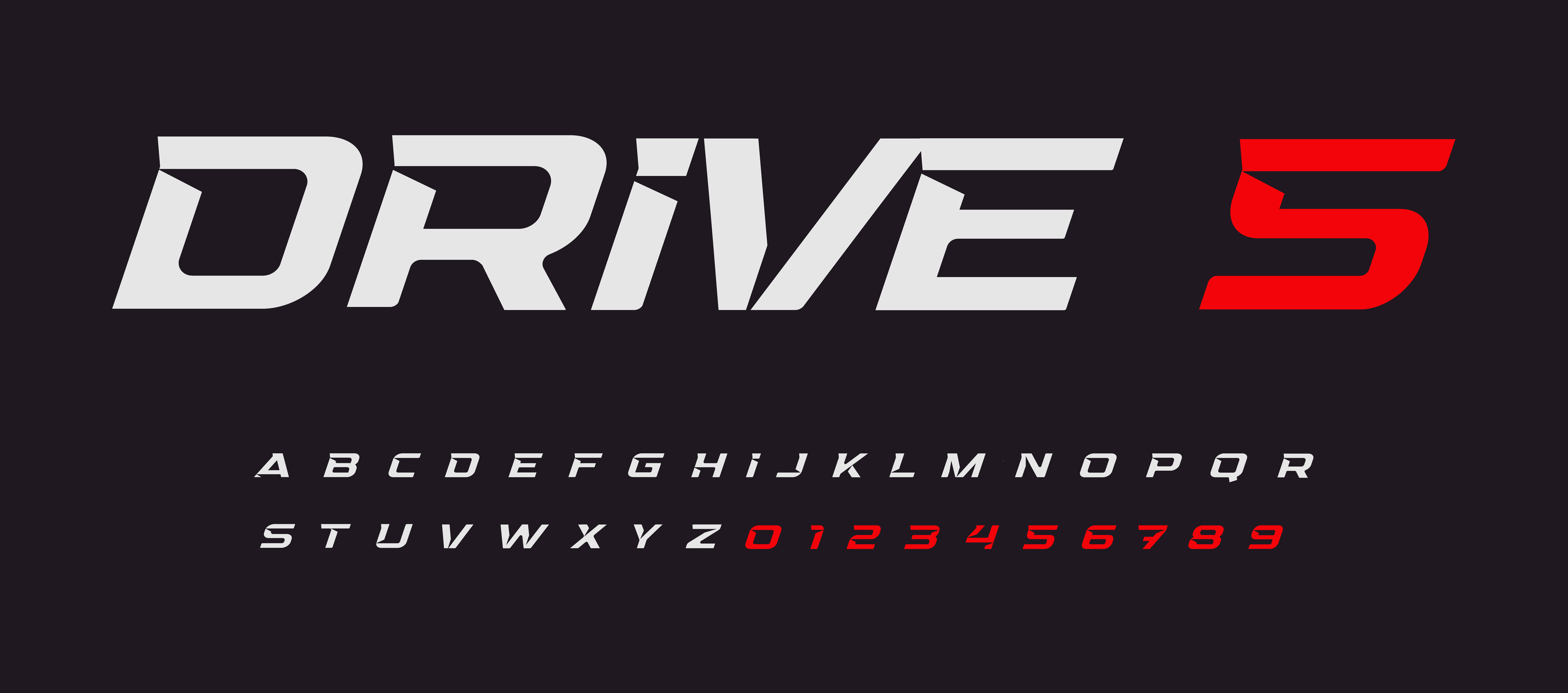
Best Font For Vehicle Graphics . But first, let’s talk about serif and san serif fonts. These are some of the best tips that you can use for vehicle lettering when it comes to vehicle wraps. Montserrat bold and roboto slab. Sans serif fonts work best for vehicle graphics. You need to be careful about. Here are three design tips for your vehicle graphics and font that can help you maximize your reach and impact. When collaborating with your marketing company or with your sign/print company, make sure to select a font that’s easy to read from a far. With commercial wraps, picking the right size, typeface, and colors can enhance the overall impact of your brand. Sans serif fonts offer optimal readability for both large and fine print, with clean and modern. Do use a font that can be read from a distance. While it may be tempting to use a unique, complicated font for your vehicle wrap message, this type of font greatly hinders readability. With hundreds of thousands of fonts out there, choosing the right font can seem overwhelming.
Montserrat bold and roboto slab. Here are three design tips for your vehicle graphics and font that can help you maximize your reach and impact. Sans serif fonts work best for vehicle graphics. Sans serif fonts offer optimal readability for both large and fine print, with clean and modern. When collaborating with your marketing company or with your sign/print company, make sure to select a font that’s easy to read from a far. With hundreds of thousands of fonts out there, choosing the right font can seem overwhelming. These are some of the best tips that you can use for vehicle lettering when it comes to vehicle wraps. Do use a font that can be read from a distance. But first, let’s talk about serif and san serif fonts. With commercial wraps, picking the right size, typeface, and colors can enhance the overall impact of your brand.
Best Font For Vehicle Graphics When collaborating with your marketing company or with your sign/print company, make sure to select a font that’s easy to read from a far. Montserrat bold and roboto slab. You need to be careful about. But first, let’s talk about serif and san serif fonts. These are some of the best tips that you can use for vehicle lettering when it comes to vehicle wraps. Do use a font that can be read from a distance. With commercial wraps, picking the right size, typeface, and colors can enhance the overall impact of your brand. Sans serif fonts offer optimal readability for both large and fine print, with clean and modern. While it may be tempting to use a unique, complicated font for your vehicle wrap message, this type of font greatly hinders readability. Here are three design tips for your vehicle graphics and font that can help you maximize your reach and impact. Sans serif fonts work best for vehicle graphics. With hundreds of thousands of fonts out there, choosing the right font can seem overwhelming. When collaborating with your marketing company or with your sign/print company, make sure to select a font that’s easy to read from a far.
Car Fonts From Your Favorite Automotive Brands Gridfiti Best Font For Vehicle Graphics Sans serif fonts work best for vehicle graphics. While it may be tempting to use a unique, complicated font for your vehicle wrap message, this type of font greatly hinders readability. But first, let’s talk about serif and san serif fonts. Here are three design tips for your vehicle graphics and font that can help you maximize your reach and. Best Font For Vehicle Graphics.
Car font alphabet letters. Automotive brand logo typography. Steel Best Font For Vehicle Graphics With hundreds of thousands of fonts out there, choosing the right font can seem overwhelming. Sans serif fonts offer optimal readability for both large and fine print, with clean and modern. You need to be careful about. With commercial wraps, picking the right size, typeface, and colors can enhance the overall impact of your brand. Here are three design tips. Best Font For Vehicle Graphics.
Car Fonts From Your Favorite Automotive Brands Gridfiti Best Font For Vehicle Graphics Sans serif fonts work best for vehicle graphics. While it may be tempting to use a unique, complicated font for your vehicle wrap message, this type of font greatly hinders readability. You need to be careful about. Here are three design tips for your vehicle graphics and font that can help you maximize your reach and impact. With commercial wraps,. Best Font For Vehicle Graphics.
20 Best Vintage Automotive Fonts Bestbuy Distributors Best Font For Vehicle Graphics These are some of the best tips that you can use for vehicle lettering when it comes to vehicle wraps. Sans serif fonts work best for vehicle graphics. With hundreds of thousands of fonts out there, choosing the right font can seem overwhelming. Here are three design tips for your vehicle graphics and font that can help you maximize your. Best Font For Vehicle Graphics.
Car Fonts From Your Favorite Automotive Brands Gridfiti Best Font For Vehicle Graphics Sans serif fonts offer optimal readability for both large and fine print, with clean and modern. With commercial wraps, picking the right size, typeface, and colors can enhance the overall impact of your brand. Montserrat bold and roboto slab. You need to be careful about. These are some of the best tips that you can use for vehicle lettering when. Best Font For Vehicle Graphics.
Automotive Fonts Top 20+ Picks for Swift Designs Best Font For Vehicle Graphics You need to be careful about. Montserrat bold and roboto slab. Sans serif fonts work best for vehicle graphics. With hundreds of thousands of fonts out there, choosing the right font can seem overwhelming. With commercial wraps, picking the right size, typeface, and colors can enhance the overall impact of your brand. Sans serif fonts offer optimal readability for both. Best Font For Vehicle Graphics.
Car Fonts From Your Favorite Automotive Brands Gridfiti Best Font For Vehicle Graphics Here are three design tips for your vehicle graphics and font that can help you maximize your reach and impact. Sans serif fonts offer optimal readability for both large and fine print, with clean and modern. While it may be tempting to use a unique, complicated font for your vehicle wrap message, this type of font greatly hinders readability. With. Best Font For Vehicle Graphics.
Racing font, aggressive and stylish lettering design. Dynamic letters Best Font For Vehicle Graphics Sans serif fonts work best for vehicle graphics. While it may be tempting to use a unique, complicated font for your vehicle wrap message, this type of font greatly hinders readability. Sans serif fonts offer optimal readability for both large and fine print, with clean and modern. These are some of the best tips that you can use for vehicle. Best Font For Vehicle Graphics.